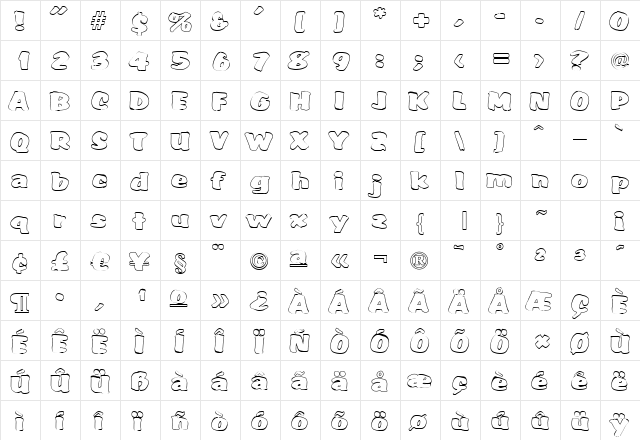
SarahBeckerOutline Normal
SarahBeckerOutline brings ornamental detail and strong personality to headlines and identities, where visual impact matters more than quiet functionality.
Font Pairing: Pair with a clean neutral sans-serif for body copy to let SarahBeckerOutline's character lead without overwhelming the composition.
Pro Tip: Treat SarahBeckerOutline as the centrepiece of your typographic hierarchy. One strong heading set in a decorative face can carry an entire layout.